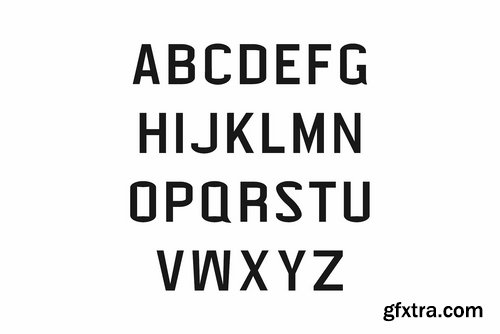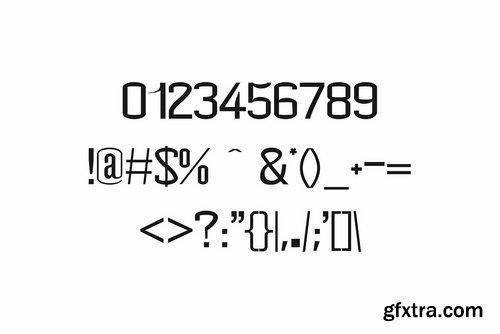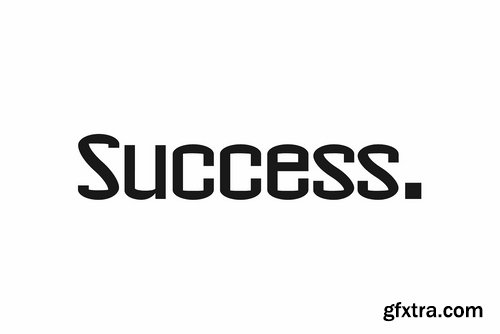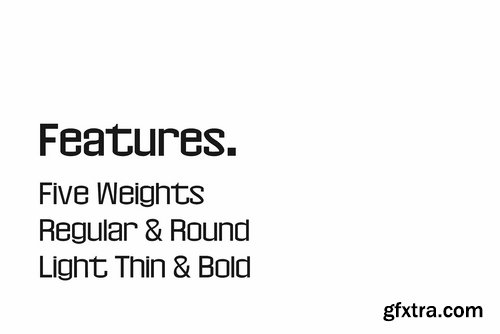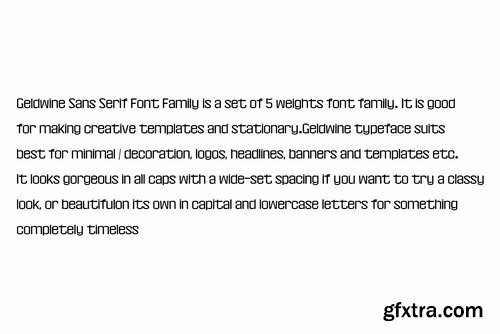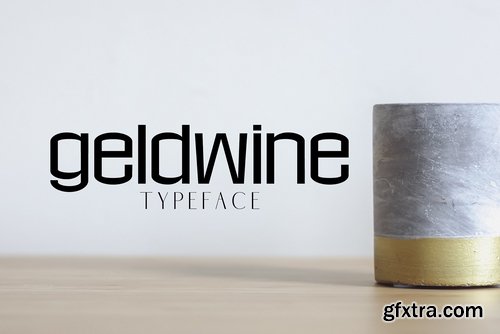
Geldwine Sans Serif Font Family is a outstanding modern sans serif font family. It comes with 5 weights. It is good for making creative templates and stationary. Geldwine typeface suits best for minimal / decoration, logos, headlines, banners and templates etc. It looks gorgeous in all caps with a wide-set spacing if you want to try a classy look, or beautifulon its own in capital and lowercase letters for something completely timeless